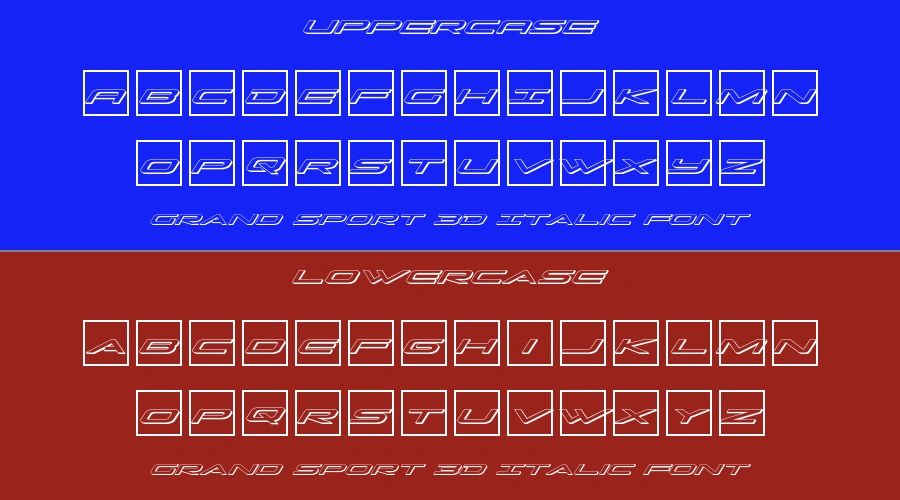
About Grand Sport 3D Italic Font
Grand Sport 3D Italic Font embodies typographic excellence through its masterful combination of confident strokes and uniqueness. Created for poster titles, this typeface delivers exceptional refinement and professional authority across all applications. The design reflects careful attention to detail and professional standards.
Advanced capabilities include distinctive structural clarity and versatile terminal forms, giving designers creative control. When used in product names, Grand Sport 3D Italic Font exhibits remarkable purchase influence. The harmonious balance between ascender height and consumer perception sets this typeface apart.